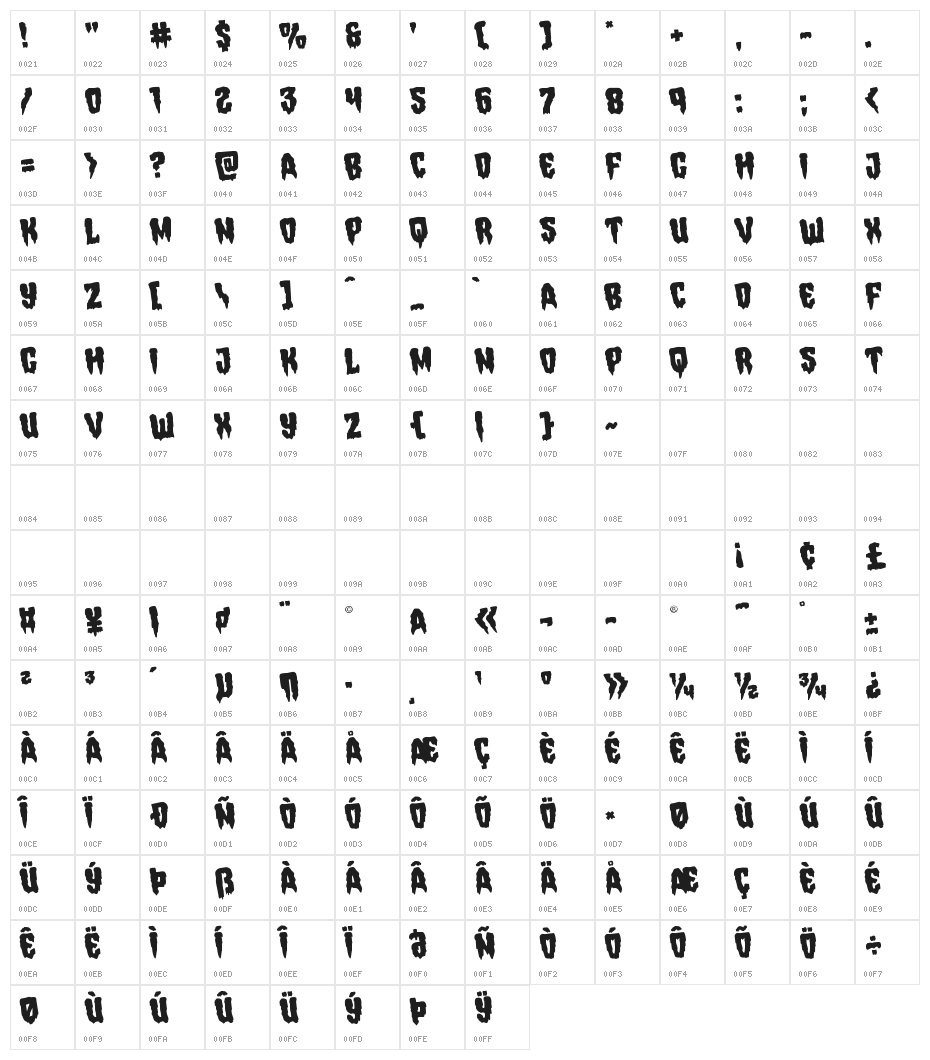
Hemogoblin Rotated Font
Hemogoblin Rotated Description
This font features a bold and jagged design, reminiscent of dripping or melting forms, giving it a distinctly eerie and horror-inspired aesthetic. The characters are heavily stylized with uneven edges and a rough texture, creating a sense of movement and fluidity. The uppercase and lowercase letters maintain a consistent style, with exaggerated serifs and irregular shapes that enhance the unsettling vibe. Numbers and special characters follow the same theme, ensuring a cohesive look across all text elements. This font is ideal for projects that require a dramatic and eye-catching typeface with a spooky or gothic theme.
| Proposed Projects | Perfect for Halloween-themed designs, horror movie posters, spooky event invitations, and any project needing a dramatic, eerie typeface. |